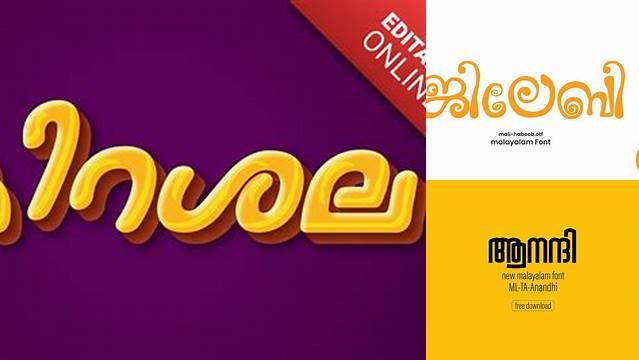
Malayalam Font Design Online Free: Your Creative Guide
So, you're on the hunt for Malayalam font design online free, huh? That's awesome! Whether you're a budding graphic designer, a blogger wanting to add some flair to your posts, or just someone who loves playing with words, finding the right tools to create beautiful Malayalam fonts is super important. Gone are the days when you had to be a design guru or splurge on expensive software. Today, the internet is bursting with free resources that let you design your own Malayalam fonts right from your browser. It’s like having a personal font workshop at your fingertips! We're going to dive deep into the world of free online Malayalam font design, exploring how you can craft unique lettering, experiment with styles, and ultimately bring your visual ideas to life without spending a single penny. Get ready to discover the tools, tips, and tricks that will make your Malayalam text pop!
Exploring Free Malayalam Font Design Tools
Alright, let's talk about the real MVPs when it comes to Malayalam font design online free. The internet has a treasure trove of amazing platforms that let you get creative with Malayalam lettering without costing you a dime. These tools are designed to be user-friendly, so even if you’ve never designed a font before, you can jump right in. Many of these online editors offer a live preview feature, which is a lifesaver. You type in your desired Malayalam text, and boom! You see it appear in the font you’re tweaking, or you can start from scratch, drawing each character. Imagine being able to customize the thickness of the strokes, the curves of the letters, or even add little flourishes – all online and for free! Some platforms even provide a library of basic Malayalam font templates you can modify, giving you a head start. Think of it as a digital clay; you can mold and shape it to your heart’s content. We’re talking about drag-and-drop interfaces, easy color selection, and the ability to export your creations in various formats, ready to be used on your website, social media, or print materials. It’s a game-changer for anyone looking to add a personal touch to their Malayalam content. The sheer accessibility means that designing custom fonts is no longer a niche skill; it's something anyone with a computer and an internet connection can try their hand at. These free tools are constantly being updated with new features, so keep an eye out for the latest innovations in online font creation. It’s a vibrant and growing space, guys, and you can be a part of it!
Crafting Unique Malayalam Lettering Online
When we talk about Malayalam font design online free, the key is to make it your own. Forget generic; let's aim for unique! Many online tools allow you to start with a blank canvas, essentially giving you the power to draw each Malayalam character from scratch. This is where the real magic happens. You can literally sketch out your vision using your mouse or a drawing tablet if you have one. Think about the traditional beauty of Malayalam script – the elegant curves, the distinct vowel signs, the unique consonant clusters. You can choose to exaggerate these features, perhaps making the curves more pronounced or the vertical strokes bolder. Or, you can go for a completely modern, minimalist look, stripping back the ornamentation to create something sleek and contemporary. Some advanced online editors even let you import existing vector shapes or sketches, giving you a base to work from. It’s all about experimenting with line weight, spacing (kerning and tracking, for the nerds among us!), and the overall feel of the font. Do you want it to feel friendly and approachable, or sophisticated and serious? Your design choices will dictate that. Remember, even small changes can make a huge difference. Adjusting the serifs, changing the contrast between thick and thin strokes, or modifying the loops within the letters can completely transform the character of your Malayalam font. The freedom to iterate and refine without the constraint of expensive software licenses is what makes these free online tools so incredibly valuable. So, don't be afraid to play around, try different combinations, and push the boundaries of traditional Malayalam typography. Your unique voice deserves a unique font!
The Power of Customizable Malayalam Fonts
One of the coolest aspects of exploring Malayalam font design online free is the sheer power of customization it unlocks. It’s not just about picking a font; it’s about building one that perfectly matches your brand, your message, or your personal style. Think about it: you can tailor every single aspect of a Malayalam font to convey exactly what you want. Need a font for a children’s book that’s playful and rounded? You can tweak the curves to be extra soft and bouncy. Designing a formal invitation? You might opt for sharper edges and a more structured feel. The ability to adjust individual letterforms is crucial. You can ensure that specific characters, like common vowels or consonants in Malayalam, have a particular aesthetic that you love. Furthermore, you can play with the weight of the font – from ultra-light and airy to bold and impactful. This level of control allows you to create a font family, perhaps offering regular, bold, and italic versions, all designed by you. Export options are also key here. Good free online tools will allow you to download your custom Malayalam fonts in formats like TTF (TrueType Font) or OTF (OpenType Font), which are widely compatible with most operating systems and design software. This means your masterpiece isn't just confined to the online editor; it can be used anywhere! Imagine using your very own hand-designed Malayalam font on your business cards, website headers, social media graphics, or even personalized gifts. It’s that sense of ownership and the ability to perfectly align typography with your vision that makes custom font design so rewarding, especially when it's accessible for free.
Accessibility in Malayalam Font Creation
Let’s talk about how Malayalam font design online free is democratizing the world of typography. Historically, creating custom fonts was a complex and expensive endeavor, requiring specialized software and considerable expertise. This meant that only large companies or professional designers could really afford to develop unique typefaces. But thankfully, the internet has leveled the playing field. Now, anyone with a basic understanding of computers and a creative spark can dive into font design. These free online tools are built with accessibility in mind. They often feature intuitive interfaces that don’t require a steep learning curve. You don’t need to understand complex coding or vector math; you just need your creativity. This accessibility opens up a world of possibilities for individuals, small businesses, bloggers, and content creators in the Malayalam-speaking community. It empowers them to establish a distinct visual identity without breaking the bank. Want your wedding invitations to have a unique Malayalam script that reflects your personal style? You can design it. Need a special font for your local temple’s newsletter? You can create it. This democratization means that the rich and beautiful Malayalam script can be expressed in countless new ways, reflecting the diversity and dynamism of the culture itself. It’s about giving everyone the tools to express themselves visually, making Malayalam typography more vibrant and accessible than ever before. The barrier to entry has been significantly lowered, allowing a broader range of voices to contribute to the visual landscape.
Designing for Different Mediums with Free Tools
When you're getting into Malayalam font design online free, it's super useful to think about where your font will be used. The same design might not work equally well for a website header versus a printed book cover. For web use, you’ll want fonts that are clear and readable even at smaller sizes. Online tools often allow you to test your font at different resolutions, which is handy. You might want to make the strokes slightly thicker or ensure good spacing to avoid blurriness on screens. For print, you have a bit more freedom. You can experiment with finer details, thinner lines, or more intricate flourishes, as printing technology can capture these nuances better. Think about newspapers, magazines, or book covers. A bolder, more impactful Malayalam font might be perfect for a headline, while a lighter, more elegant one could be ideal for body text. Some free online editors even let you specify the intended use, helping you optimize your design. For example, if you're designing for digital signage or large displays, legibility from a distance is key. You might need to increase the x-height (the height of lowercase letters like 'x') or ensure strong contrast. Conversely, for small, intricate designs like logos or embroidery patterns, you might need a more condensed or simplified font. Understanding these requirements beforehand helps you make informed design decisions within the free online tools, ensuring your beautiful custom Malayalam font looks fantastic no matter the medium. It's all about context, guys, and these tools help you design with that in mind.
Utilizing Pre-made Malayalam Font Templates
Sometimes, starting from a completely blank slate for Malayalam font design online free can feel a bit daunting, right? That’s where pre-made templates come in super handy! Many online font creators offer a library of basic Malayalam font styles or individual character templates that you can use as a starting point. Think of these as blueprints for your creativity. You might find a template with a classic, traditional look, or perhaps a modern, sans-serif style. Instead of drawing every single curve and line from scratch, you can simply select a template and then begin modifying it to make it your own. This is incredibly efficient and still allows for a high degree of personalization. You can adjust the thickness of the strokes, change the shape of the serifs (or remove them entirely!), tweak the spacing between letters, and experiment with different stylistic elements. It’s like having a solid foundation upon which you build your unique creation. This approach is fantastic for beginners who want to understand the basics of font design or for experienced designers who need to quickly generate a custom look. You can take a basic template and inject your personality into it, ensuring that while it might share structural similarities with other fonts, the fine details will make it distinctly yours. Plus, many templates are designed with good typographic principles in mind, giving you a head start on creating a legible and aesthetically pleasing Malayalam font. So, don't shy away from using these templates – they're a powerful asset in the world of free online font creation!
The Importance of Legibility in Malayalam Typography
When you’re deep into Malayalam font design online free, one thing you absolutely must keep front of mind is legibility. It doesn't matter how cool or artistic your custom Malayalam font looks if people can't actually read it easily! This is especially true for Malayalam script, which has its own unique complexities with vowel signs and conjunct consonants. Good legibility means that readers can comfortably and quickly understand the text without straining their eyes. When designing your font, pay close attention to the clarity of individual characters. Are the vowel signs distinct and correctly positioned relative to the consonants? Are the conjunct consonants formed clearly, or do they look jumbled? Spacing is another critical factor. Proper kerning (the space between specific pairs of letters) and tracking (the overall spacing in a block of text) significantly impact readability. If letters are too close together, the text can appear cramped; if they're too far apart, it can break the flow. Test your font at various sizes, both small (like for body text on a website) and large (like for headlines). What looks good as a large display font might become unreadable when shrunk down. Many free online tools allow you to preview your font with sample text, which is invaluable for checking legibility. Think about the contrast between thick and thin strokes – too much contrast can sometimes cause issues on lower-resolution screens. Ultimately, a beautifully designed Malayalam font that is also highly legible is the ultimate goal. It’s the perfect marriage of aesthetics and function, ensuring your message is not only seen but also understood effortlessly. Prioritize clarity, guys; it’s the foundation of effective typography.
Adapting Fonts for Web and Print Needs
So, you’ve poured your heart into Malayalam font design online free, and now you’re ready to use it. But wait! Remember how we touched on different mediums? Let’s dive a bit deeper into adapting your custom Malayalam font for both web and print. For the web, think screens, responsiveness, and load times. Your custom font needs to render clearly across different devices and browsers. This often means avoiding overly complex or thin strokes that might pixelate or disappear on smaller screens. Ensuring adequate spacing and perhaps a slightly bolder weight can help maintain legibility online. Many free tools let you test your font in a web preview, which is super helpful. Also, consider the file size; excessively complex fonts can slow down your website. Stick to essential characters if you’re creating a very specific font to keep the file manageable. For print, the game changes slightly. Print allows for much finer detail and higher resolution. You can incorporate delicate serifs, subtle gradients within strokes, or more intricate ligatures (connected letter forms) that might not translate well digitally. If you’re designing for a book cover, a magazine spread, or even a poster, you can afford to be more adventurous with your styling. Think about the paper quality and printing method, too – these can affect how the ink settles and the final appearance of your Malayalam font. The key is to use the capabilities of the free online tools to create versions or make adjustments specifically suited for each medium. Maybe you create a slightly bolder, cleaner version for the web and a more detailed, elegant version for print. This dual-thinking ensures your unique Malayalam typography shines wherever it's used.
Exploring Different Styles of Malayalam Fonts Online
Vector Graphics and Font Design
When you're diving into Malayalam font design online free, understanding the role of vector graphics is pretty key, guys. Unlike raster images (like JPEGs or PNGs) made of pixels, vector graphics are based on mathematical equations that define points, lines, and curves. This is super important for fonts because it means your Malayalam font can be scaled infinitely – from the size of a tiny icon to a massive billboard – without losing any quality or getting blurry. Most decent online font design tools utilize vector-based drawing. This allows you to create smooth, clean lines and curves for your Malayalam characters. You'll often be working with tools that let you manipulate anchor points and paths to shape each letterform precisely. Think of it like using digital pen and ink, but with the ability to adjust every stroke perfectly. Even if you’re drawing freehand using your mouse, the software converts your input into smooth vector paths. This ensures that when you export your final Malayalam font file (like TTF or OTF), it contains clean, scalable outlines. This is fundamental to professional-quality typography. So, even if the term